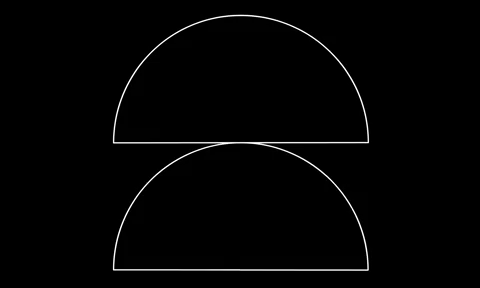
For the final project in GE1 (Grand Prix), Will combined programs and techniques to create a generative
camouflage tool. His form making process began with writing a drawing program in Python which was executed by DrawBot. These forms were then turned into a variable typeface which provided a way to explore the transition (interpolation) between two formally unique masters for each glyph.
A simple .py script was used to create a vanilla slider to demonstrate a possible user interface to the generative tool. Will pushed his process one step further by printing the swatches on fabric and capturing the final forms through analogue means; a vhs recorder and tube tv (outcome shown above, process shown below).
From Will:
“Tesselate is a variable typeface available in two styles: extended and swatch. It is a generative tool for camouflage creation and experimentation. Tesselate tests the notion of language as a clarifying tool vs. as a tool for obfuscation.”